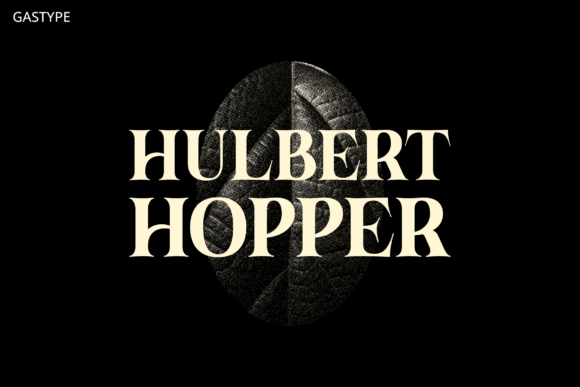
Journey through time with "Hulbert Hopper Display," a serif treasure that captures the essence of vintage charm. Picture this: the elegance of bygone eras, the allure of retro aesthetics, and the timeless appeal of classic typography—all harmoniously blended in a single font. With its clean lines, graceful curves, and distinctive serif style, "Hulbert Hopper Display" is not just a font; it's a gateway to a nostalgic world, where creativity knows no bounds.
Immerse yourself in the versatile nature of "Hulbert Hopper Display." Whether you're crafting a vintage-inspired poster, breathing life into a classic book cover, or embarking on a retro-style website design, this font is your ultimate companion. Its adaptability shines through, seamlessly blending with various design aesthetics, ensuring that your message resonates with your audience.
Transport your audience to a bygone era with "Hulbert Hopper Display." Its timeless elegance evokes a sense of nostalgia, captivating their attention and drawing them into your creative realm. Let your words dance gracefully across the screen, leaving an unforgettable impression that lingers in their minds.
Unleash your creativity with "Hulbert Hopper Display." Its user-friendly nature makes it effortless to navigate, ensuring that your design vision takes shape seamlessly. Say goodbye to technical hurdles and hello to a world of effortless expression.
"Hulbert Hopper Display" is more than just a font; it's an invitation to embark on a creative journey. Its unique charm and versatility empower you to craft designs that stand the test of time. Embrace the vintage allure, captivate your audience, and leave an indelible mark on their hearts and minds.